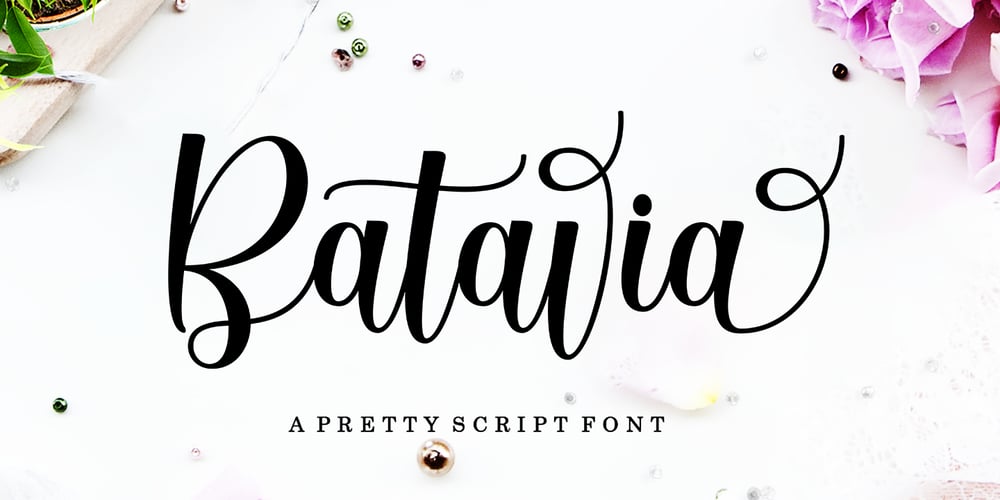
Batavia Script Font Family was designed by Rizki Andika and published by Letterfreshstudio. Batavia Script contains 1 styles and family package options. Batavia Script is a modern elegant and beautiful script font with swash. Can be used for various purposes. such as logos, product packaging, wedding invitations, branding, headlines, signage, labels, signatures, book covers, posters, quotes, etc. Batavia Script includes a change of the OpenType language style, binding and international support for most Western languages. To activate the OpenType Stylistic alternative, you need a program that supports OpenType features such as Adobe Illustrator CS, Adobe Indesign & CorelDraw X6-X7, Microsoft Word 2010 or newer versions. How to access all alternative characters using Adobe Illustrator: https://www.youtube.com/watch?v=XzwjMkbB-wQ Batavia Script is coded with PUA Unicode, which allows full access to all additional characters without having special design software. Mac users can use the Font Book, and Windows users can use Character Maps to view and copy one of the additional characters to paste into your favorite text editor/application. How to access all alternative characters, using Windows Character Map with Photoshop: https://www.youtube.com/watch?v=Go9vacoYmBw If you need help or have questions, please let me know. I am happy to help.